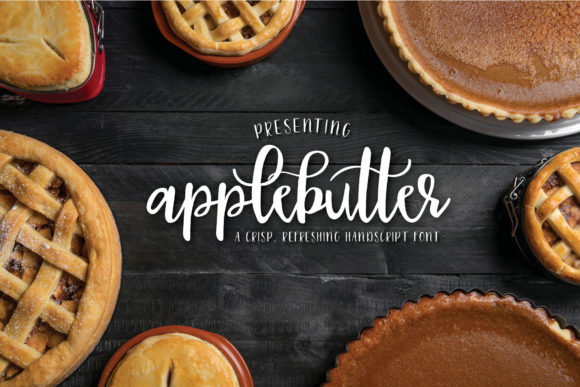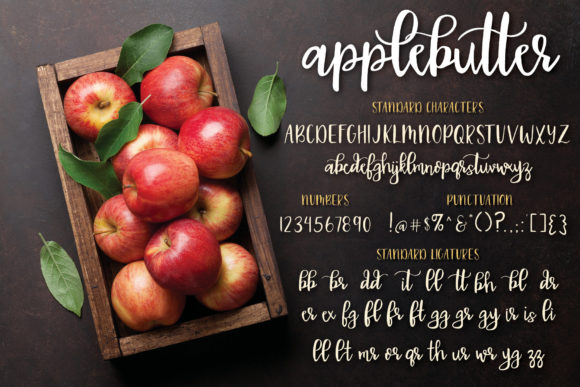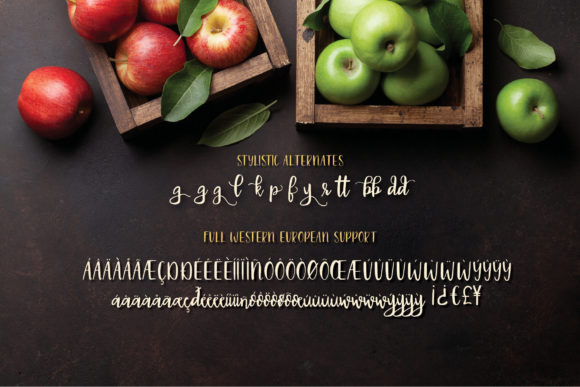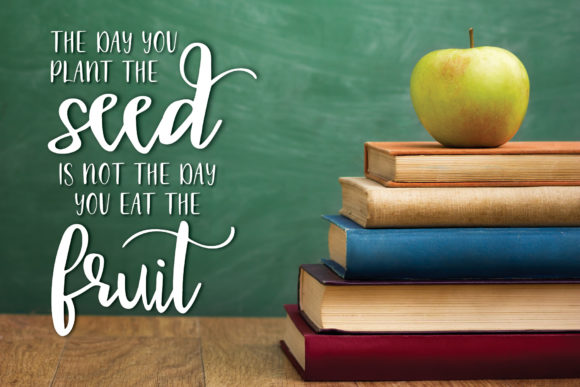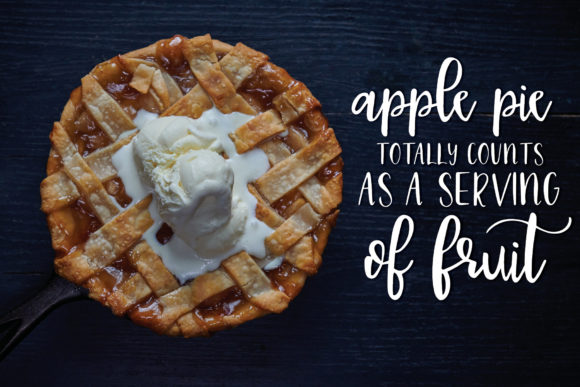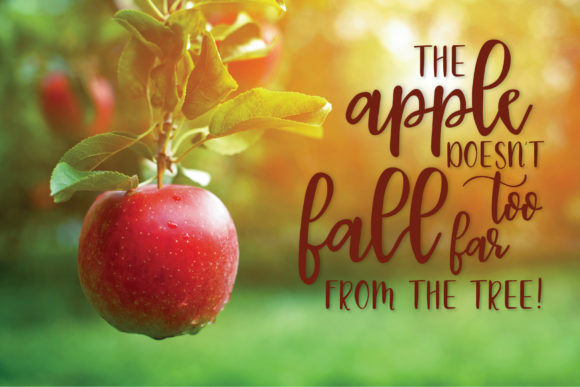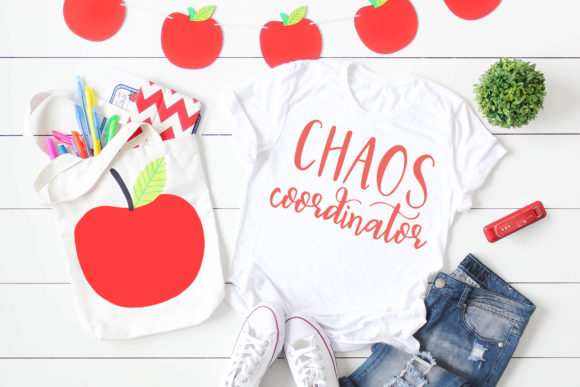
Applebutter Font
About Applebutter Font
Applebutter is a hand-lettered whimsical font, perfect for invitations, beautiful art prints, and any other creative idea in need of an authentic touch!